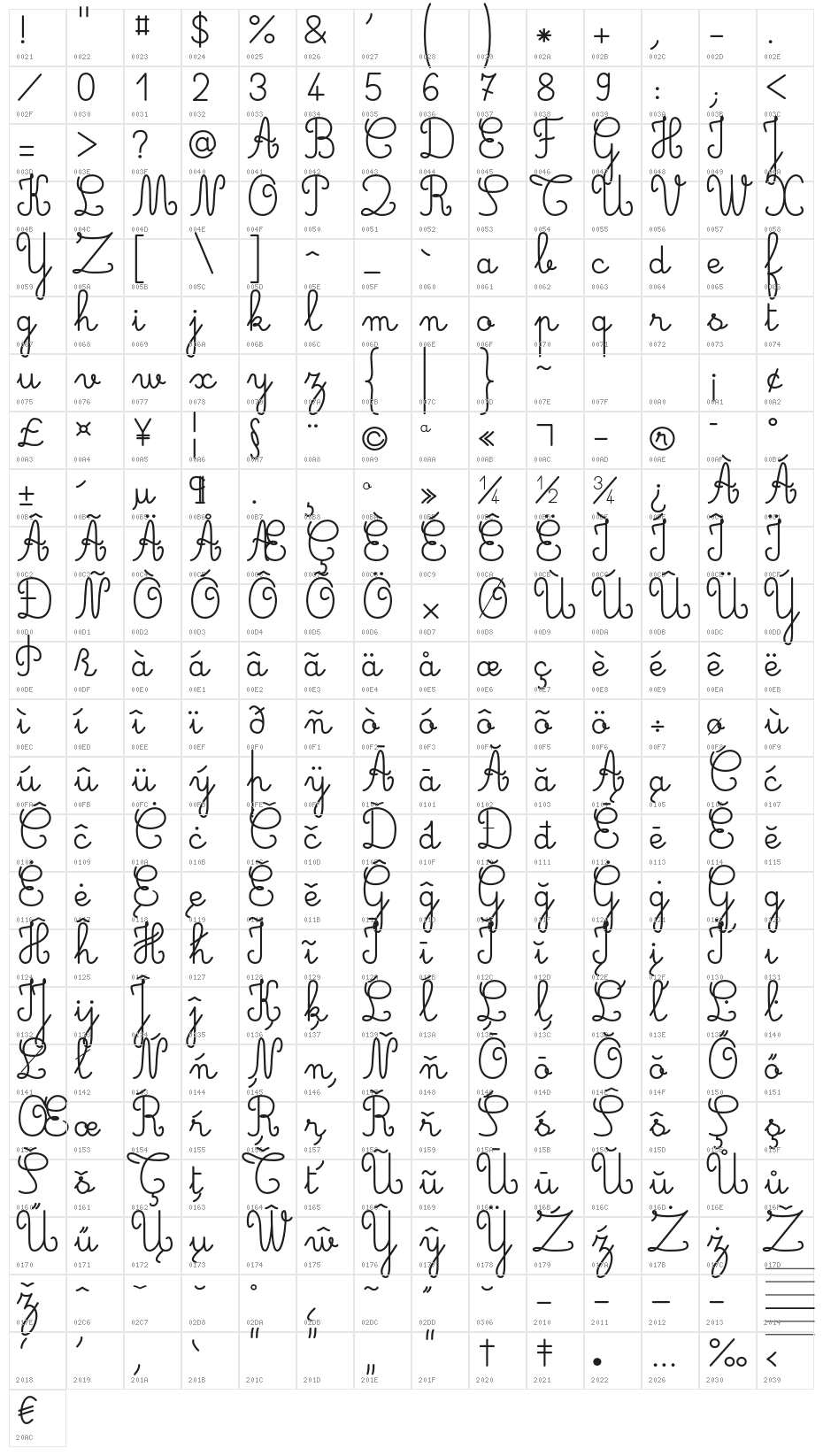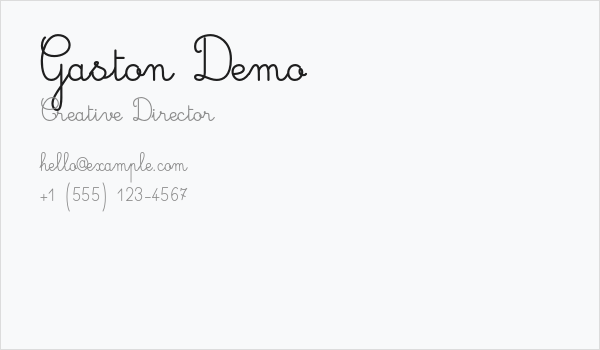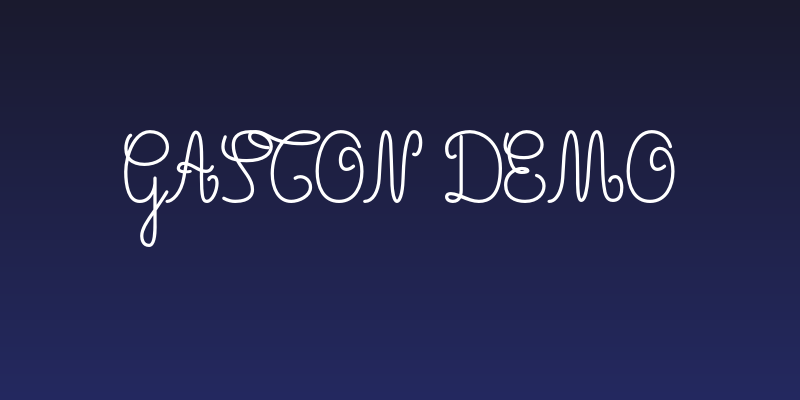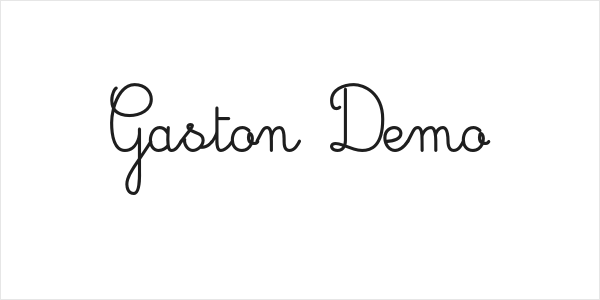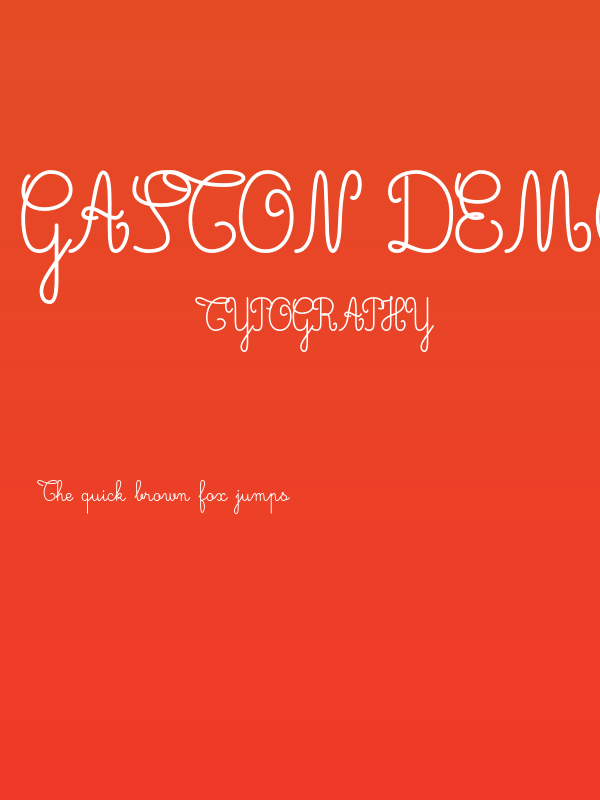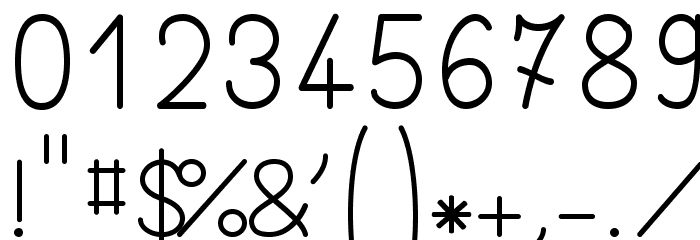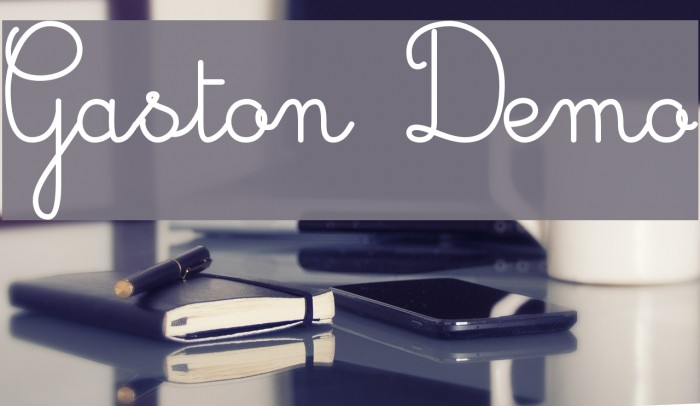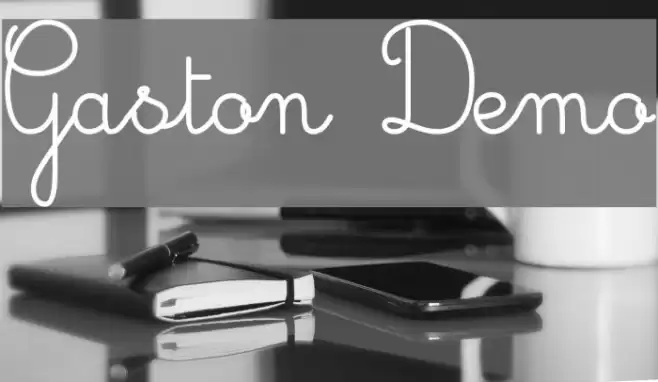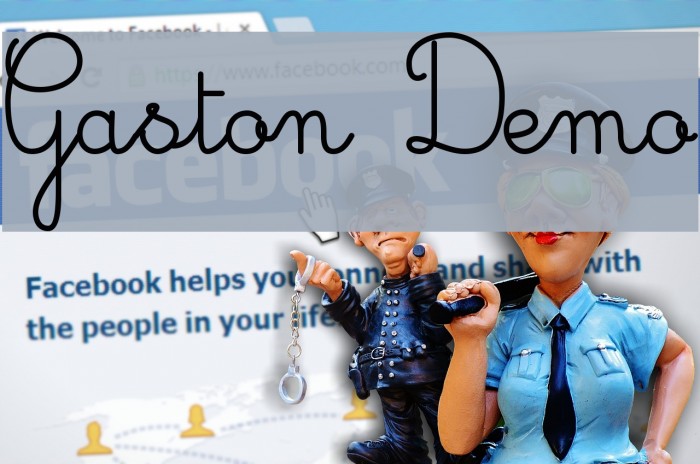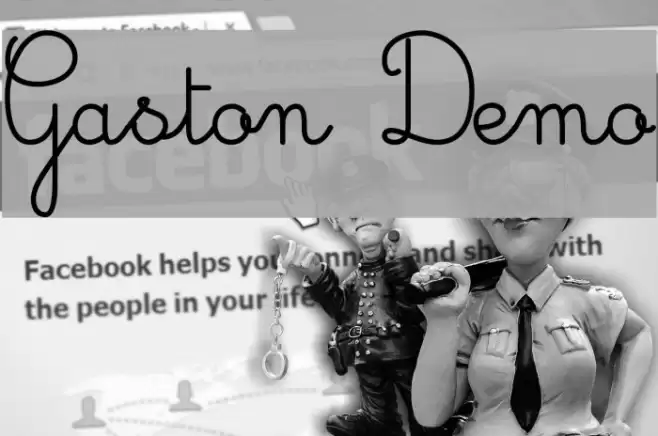
Gaston Demo Font
Gaston Demo Description
This font features a playful and whimsical script style with a handwritten appearance. The uppercase letters are characterized by their looping and flowing lines, giving them a lively and dynamic feel. The lowercase letters maintain a consistent style, with smooth curves and rounded edges that enhance the font's approachable and friendly look. Numbers and special characters are designed to match the overall aesthetic, ensuring a cohesive appearance across all text. The font's unique style makes it suitable for creative and informal projects, adding a touch of personality and charm.
| Overall Style | Playful |
| Use Case | Headlines, Logos, Invitations |
| Proposed Projects | Ideal for greeting cards, invitations, playful branding, and creative projects. |